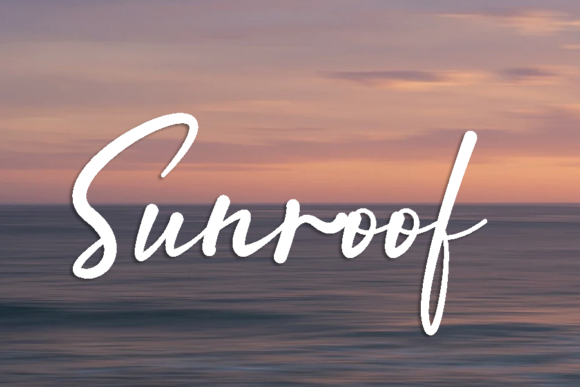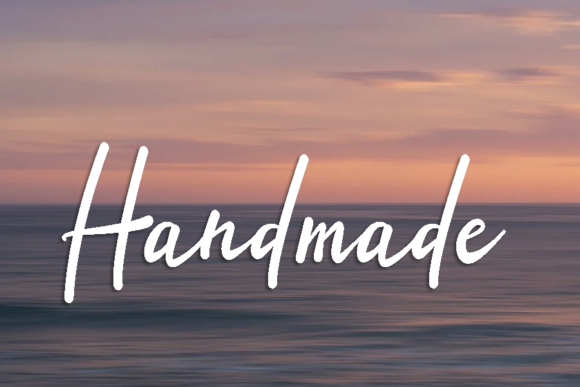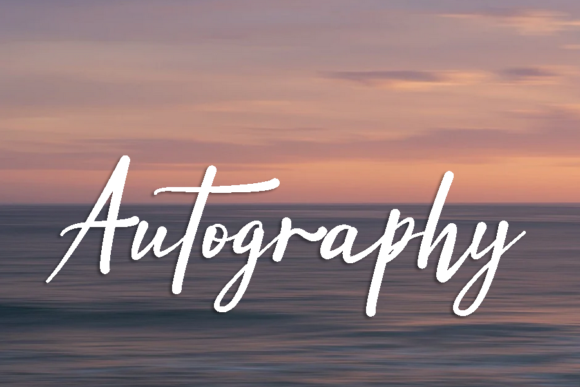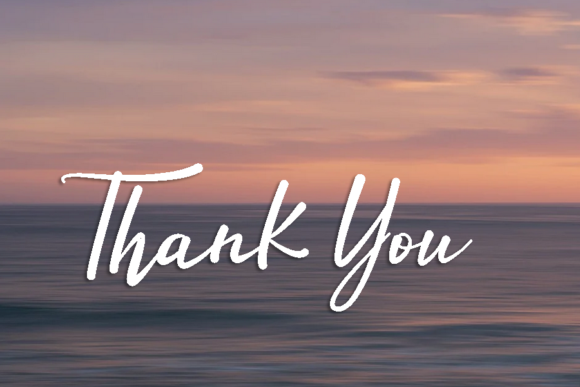
Discover the Charm of Attention Font: Elevate Your Designs with its Unique Style
Are you tired of using the same old fonts in your designs? Look no further than Attention Font, a casual and adaptable handwritten font that’s sure to capture your heart. With its distinct and well-balanced letters, this font is a masterpiece that will take your designs to the next level. In this article, we’ll dive into the world of Attention Font and explore its features, benefits, and uses.
What is Attention Font?
Attention Font is a beautifully crafted handwritten font that’s perfect for designers and crafters looking for a unique and versatile style. Its casual and adaptable nature makes it suitable for a wide range of design projects, from branding and advertising to packaging and digital media.
Distinct and Well-Balanced Letters
One of the standout features of Attention Font is its distinct and well-balanced letters. Each letter is carefully crafted to ensure that it’s not only visually appealing but also highly legible. The font’s unique character set includes a range of letters, numbers, and punctuation marks that are perfect for creating stunning designs.
Incredibly Versatile Style
Attention Font’s incredibly versatile style is one of its greatest strengths. Whether you’re designing a logo, brochure, or social media post, this font can adapt to any style or theme. Its casual and handwritten nature makes it perfect for creating designs that are relaxed, friendly, and approachable.
Benefits of Using Attention Font
- Unique and Eye-Catching Designs: Attention Font’s distinct and well-balanced letters make it perfect for creating unique and eye-catching designs that stand out from the crowd.
- Highly Legible: The font’s careful craftsmanship ensures that it’s highly legible, even at small sizes.
- Versatile: Attention Font can be used for a wide range of design projects, from branding and advertising to packaging and digital media.
Uses of Attention Font
Attention Font is perfect for a wide range of design projects, including:
- Branding and Advertising: Use Attention Font to create stunning logos, brochures, and adverts that capture your audience’s attention.
- Packaging Design: The font’s unique and eye-catching style makes it perfect for packaging design, including labels, tags, and packaging materials.
- Digital Media: Attention Font is perfect for digital media, including social media posts, blog headers, and website designs.
- Crafting and Scrapbooking: The font’s handmade nature makes it perfect for crafting and scrapbooking projects, including cards, invitations, and journal pages.
In conclusion, Attention Font is a must-have for designers and crafters looking for a unique and versatile font. Its distinct and well-balanced letters, incredibly versatile style, and ease of use make it perfect for a wide range of design projects. Whether you’re a seasoned designer or a crafting enthusiast, Attention Font is sure to capture your heart and elevate your designs to the next level.